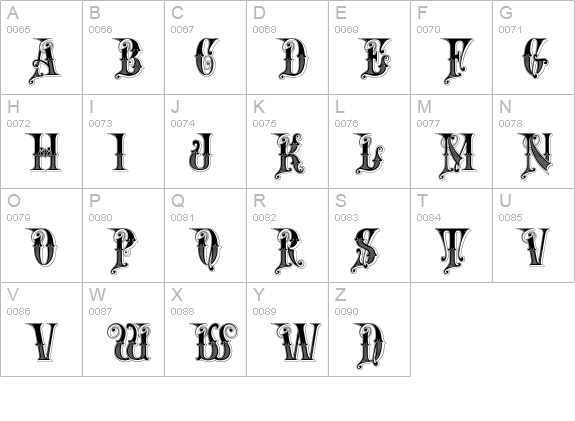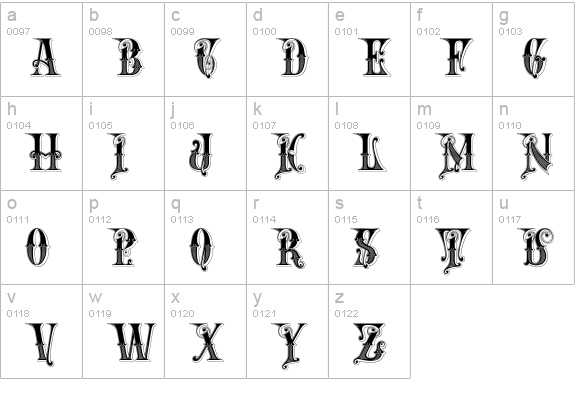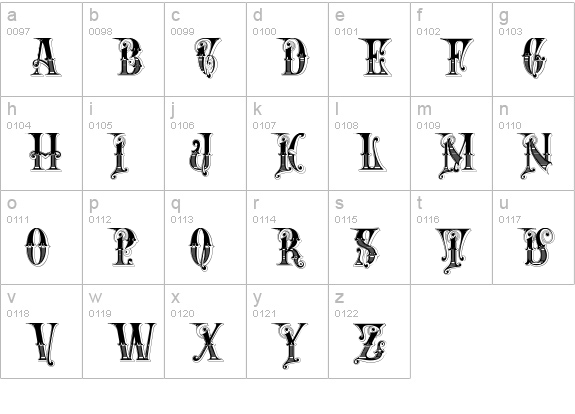
Rough Riders Alt Caps font is a bold and rugged typeface that exudes strength and character. Its distinctive letterforms are inspired by vintage western typography, making it perfect for projects that require a touch of old-school charm. The rough edges and tall caps give this font a unique and eye-catching look that is sure to make your designs stand out. What's even better is that Rough Riders Alt Caps font is available for free download at FontsMarket.com. This means you can easily add this striking typeface to your collection without any cost. Whether you're working on a poster, logo, or any other design project, Rough Riders Alt Caps font will bring a touch of authenticity and flair to your work. Download it today and start creating with this versatile and eye-catching font!